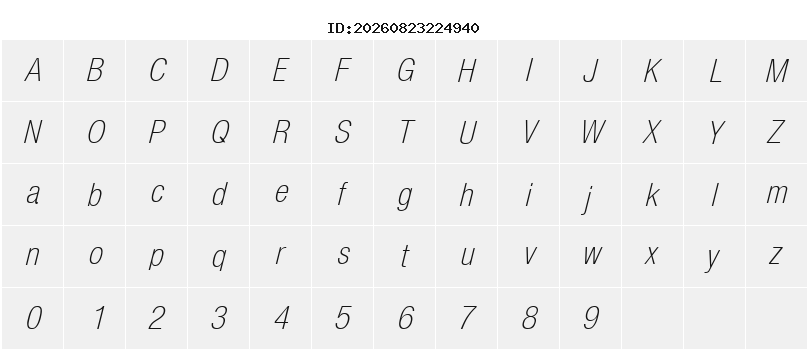
SansCondLH Preview
• Font Name: SansCondLH
• Font ID: Altsys Fontographer 3.5 SansCondLH Italic
• Full Font Name: SansCondLH Italic
• Version: Altsys Fontographer 3.5 8/6/92
• PostScript Name: SansCondLH-Italic
About SansCondLH.ttf
SansCondLH.ttf is a modern, elegant sans-serif font designed for ultimate readability and visual harmony. Perfect for branding, headlines, web design, and print materials.